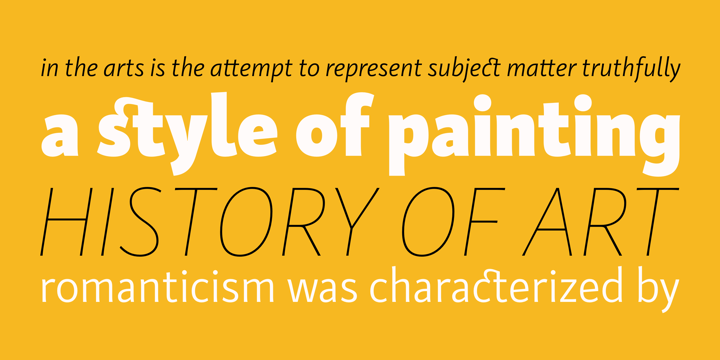
Kardinal Font Family
Befonts introduce to you the set of fonts, introduction Kardinal Font Family! Kardinal designed by lettersoup. Kardinal is a sans serif humanistic type family. The family has 32 weights, ranging from Thin to Black with extra drawn italics and small caps versions. The Kardinal type family is ideally suites for small text, books and magazines, branding, posters, as well as web and screen design, headlines and more.